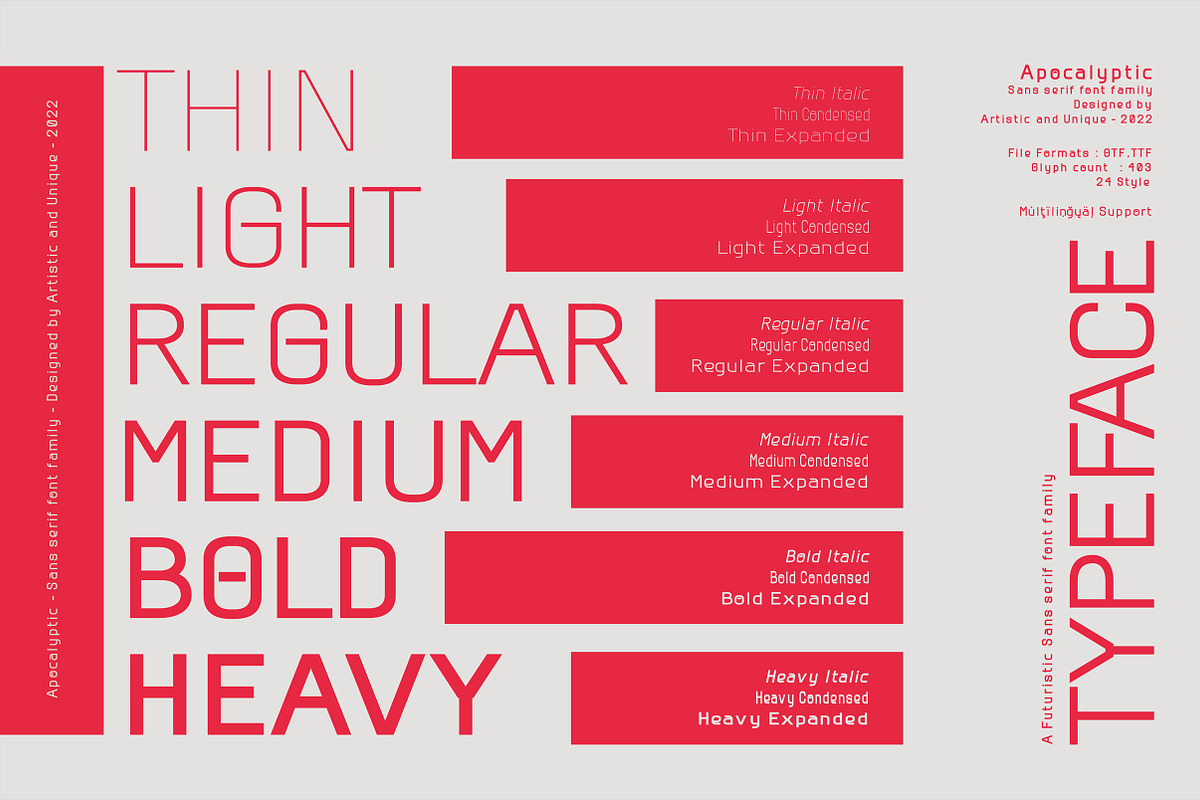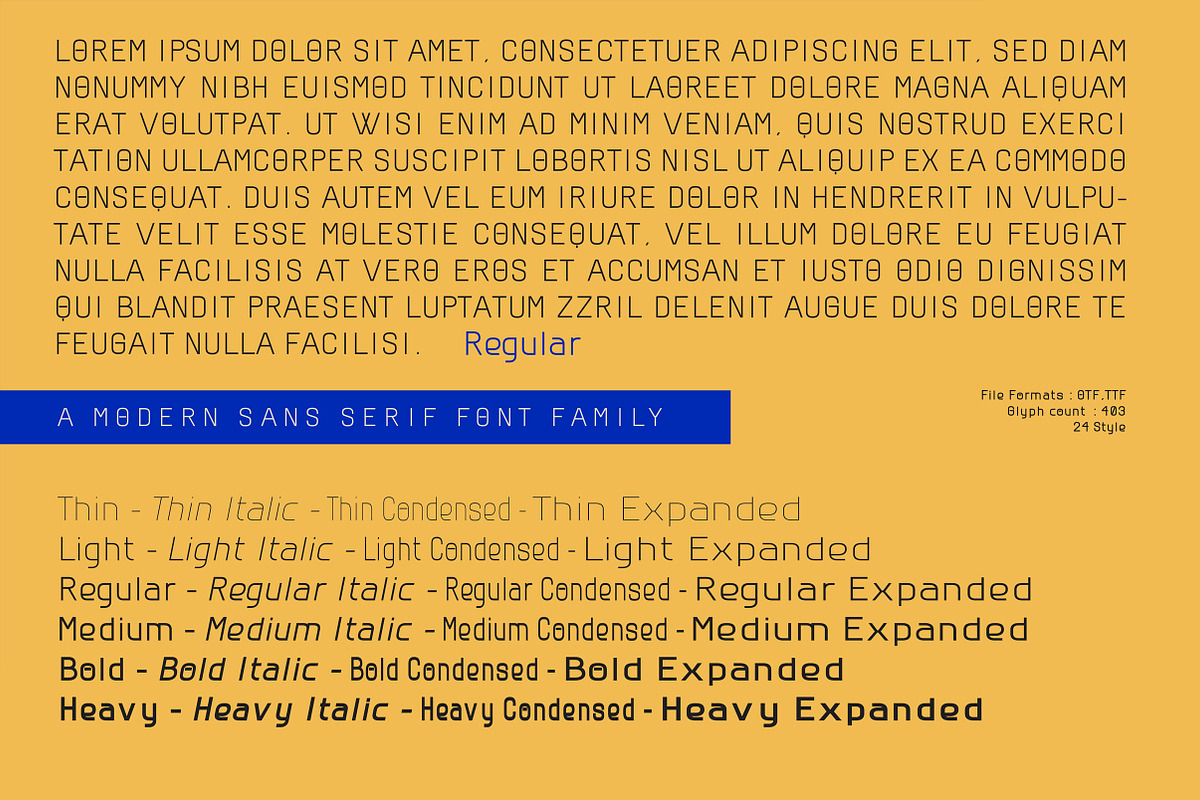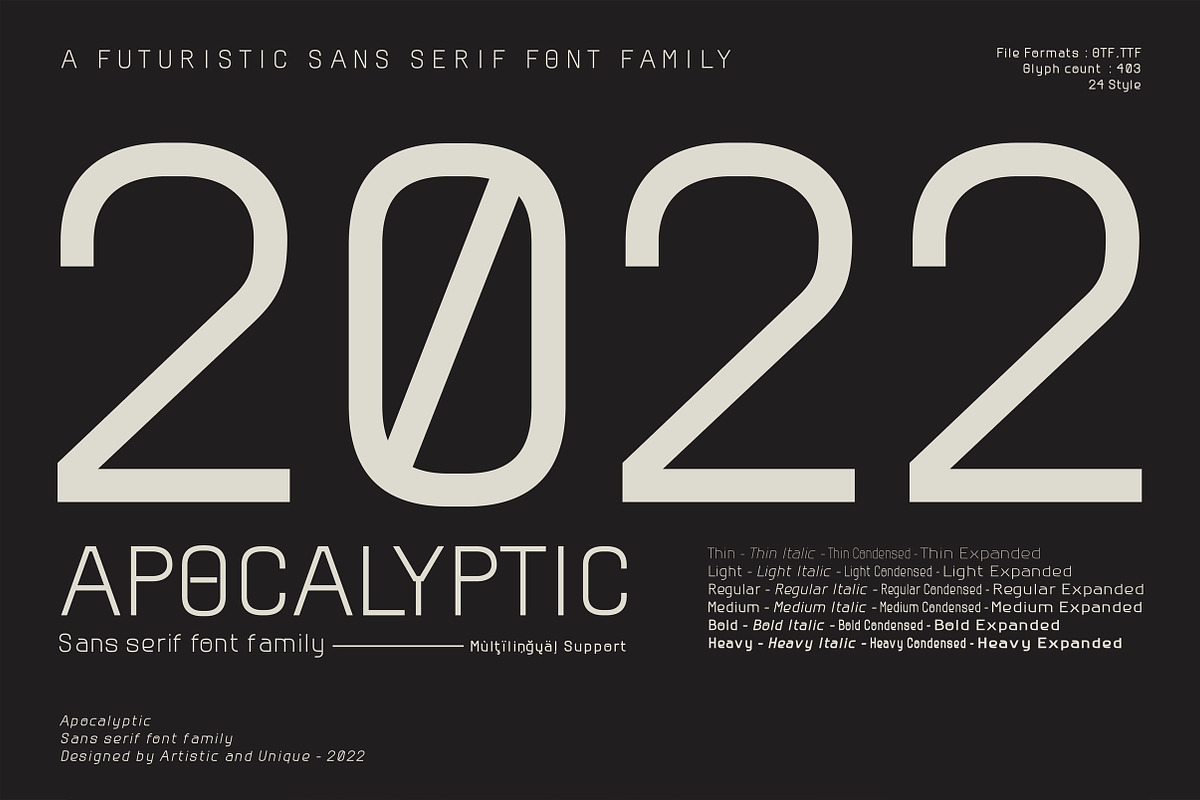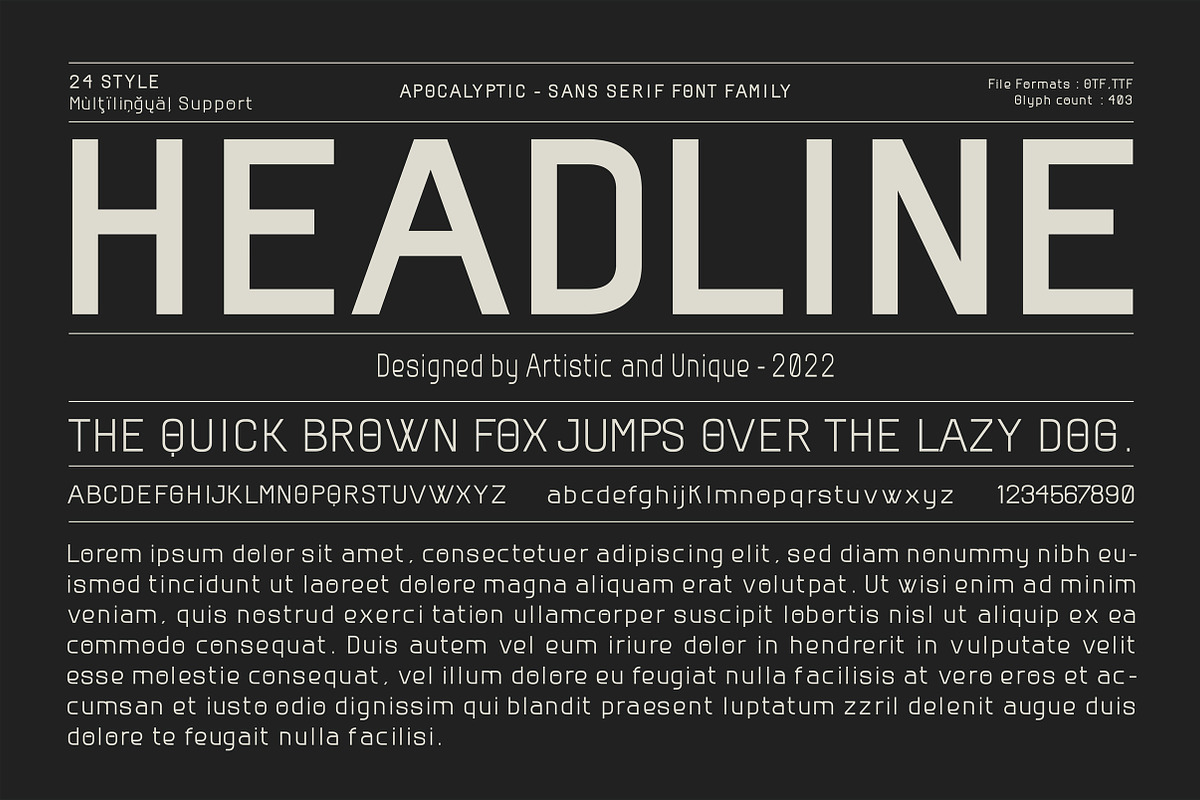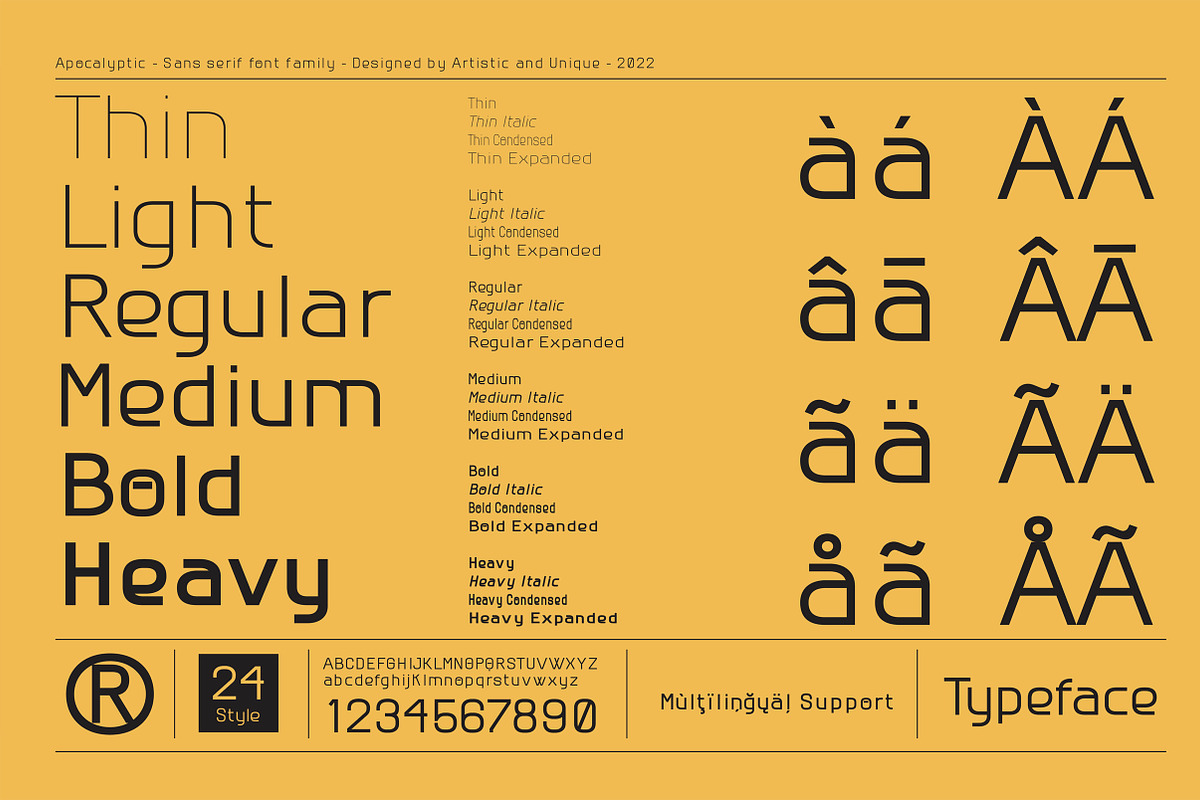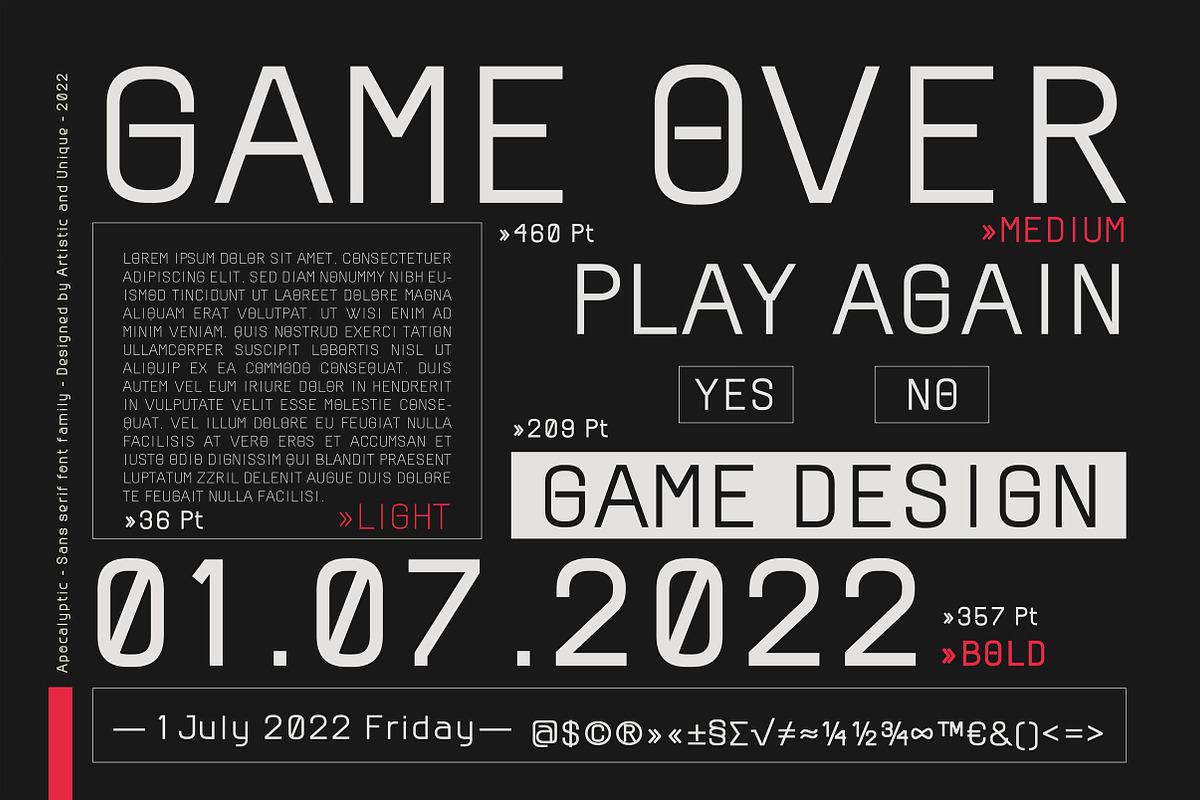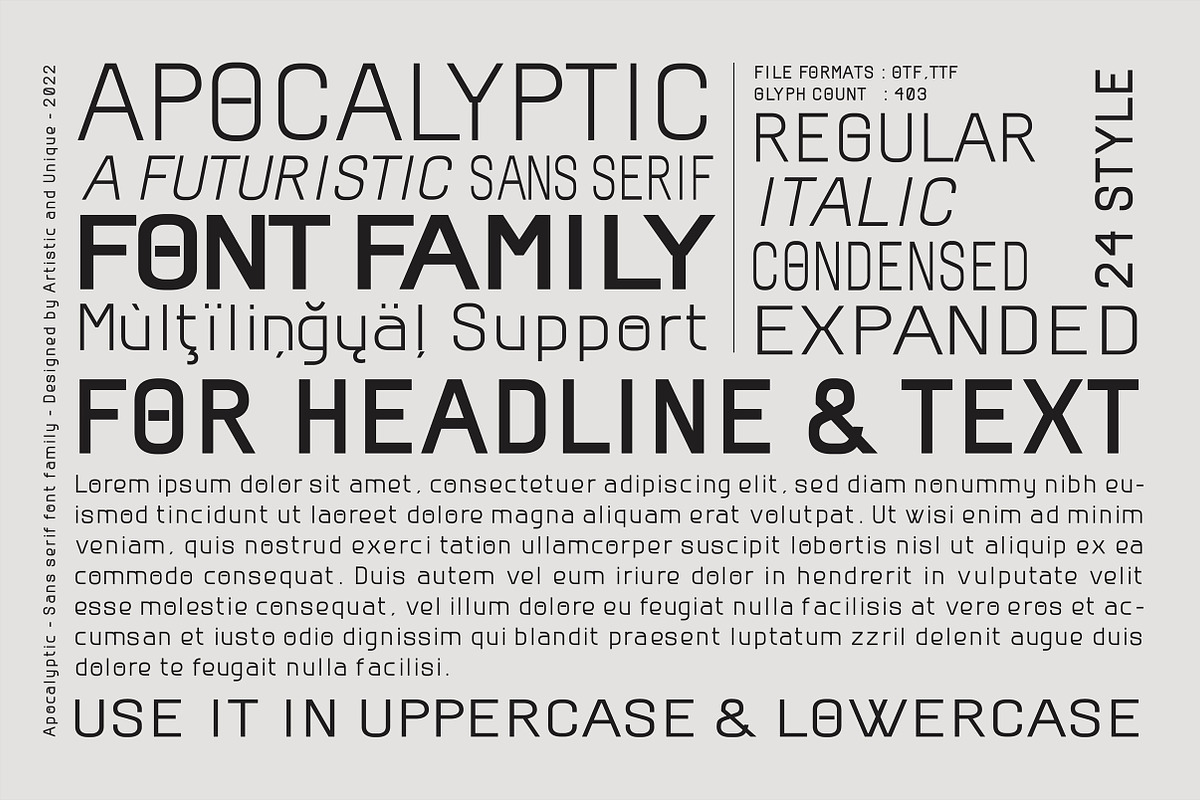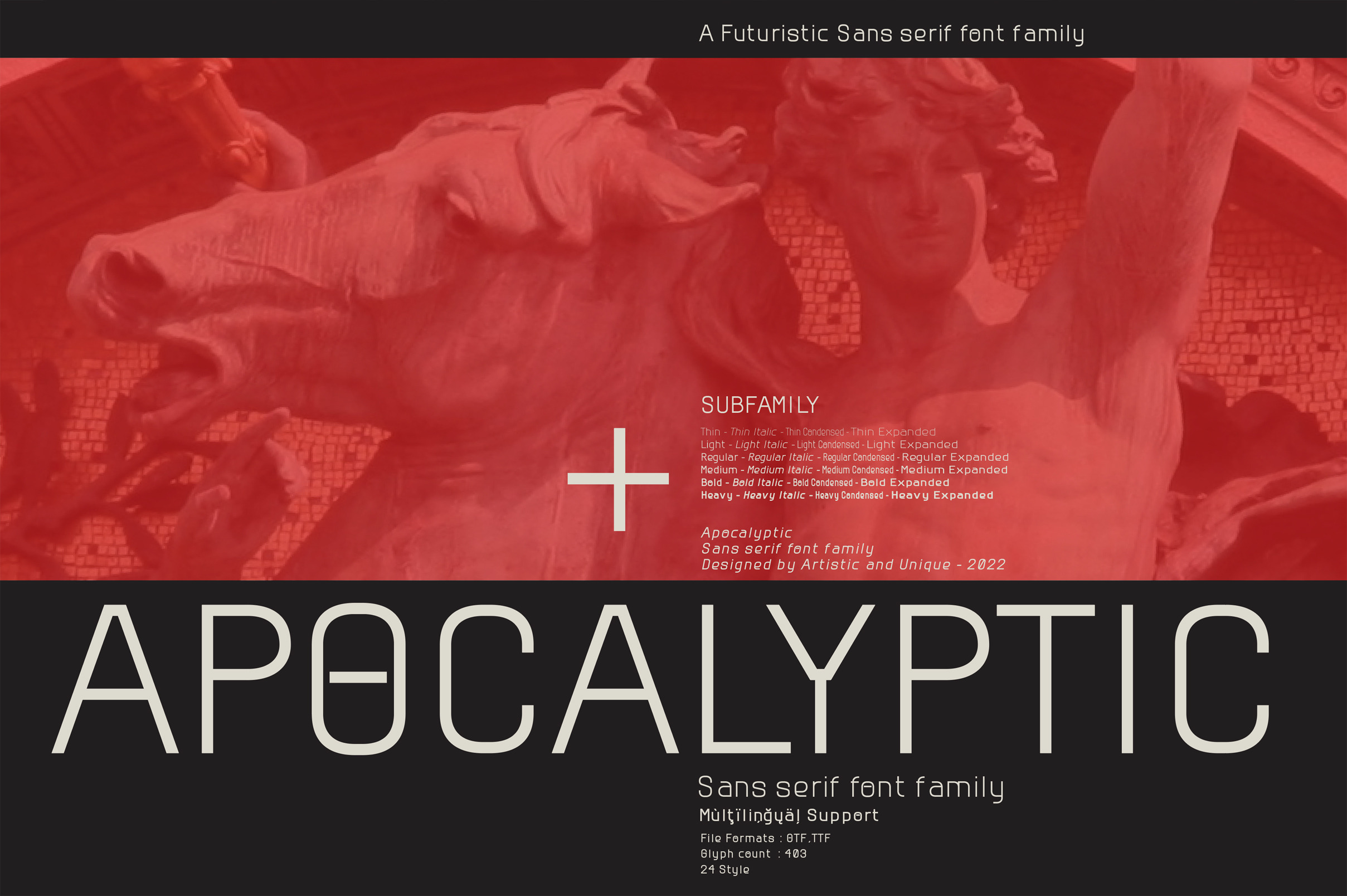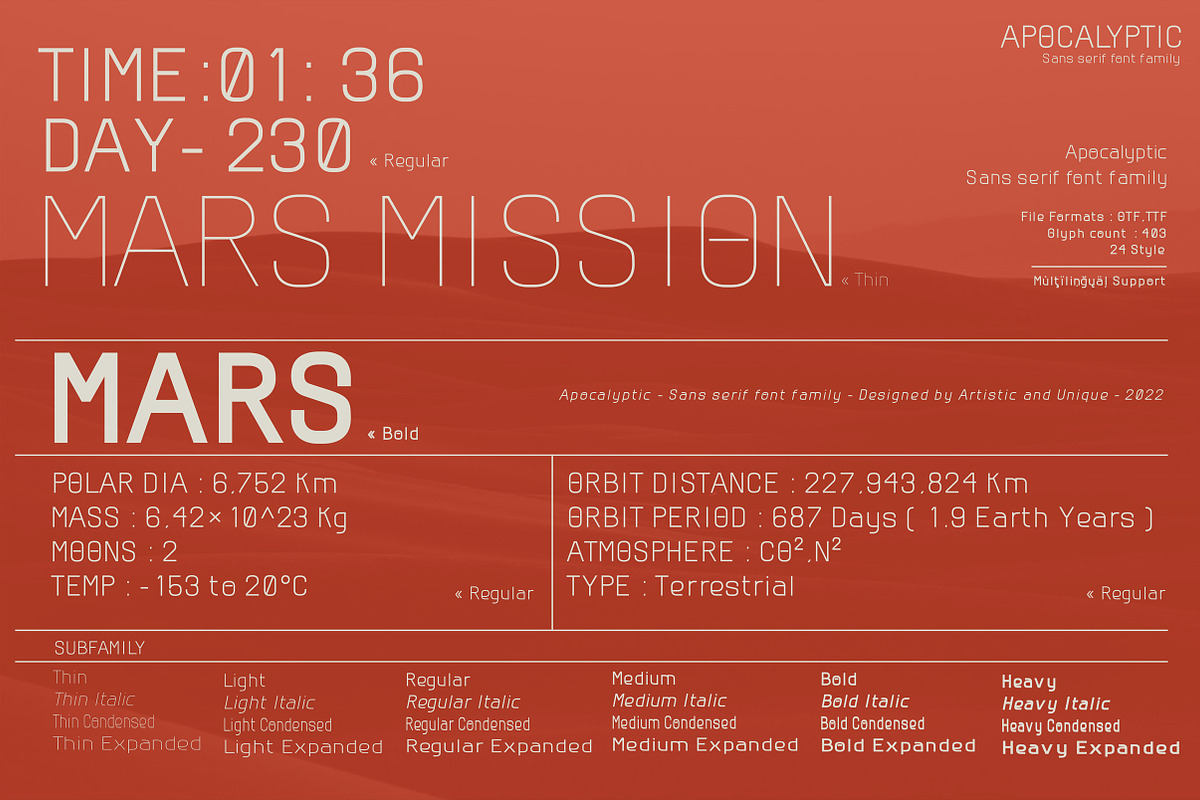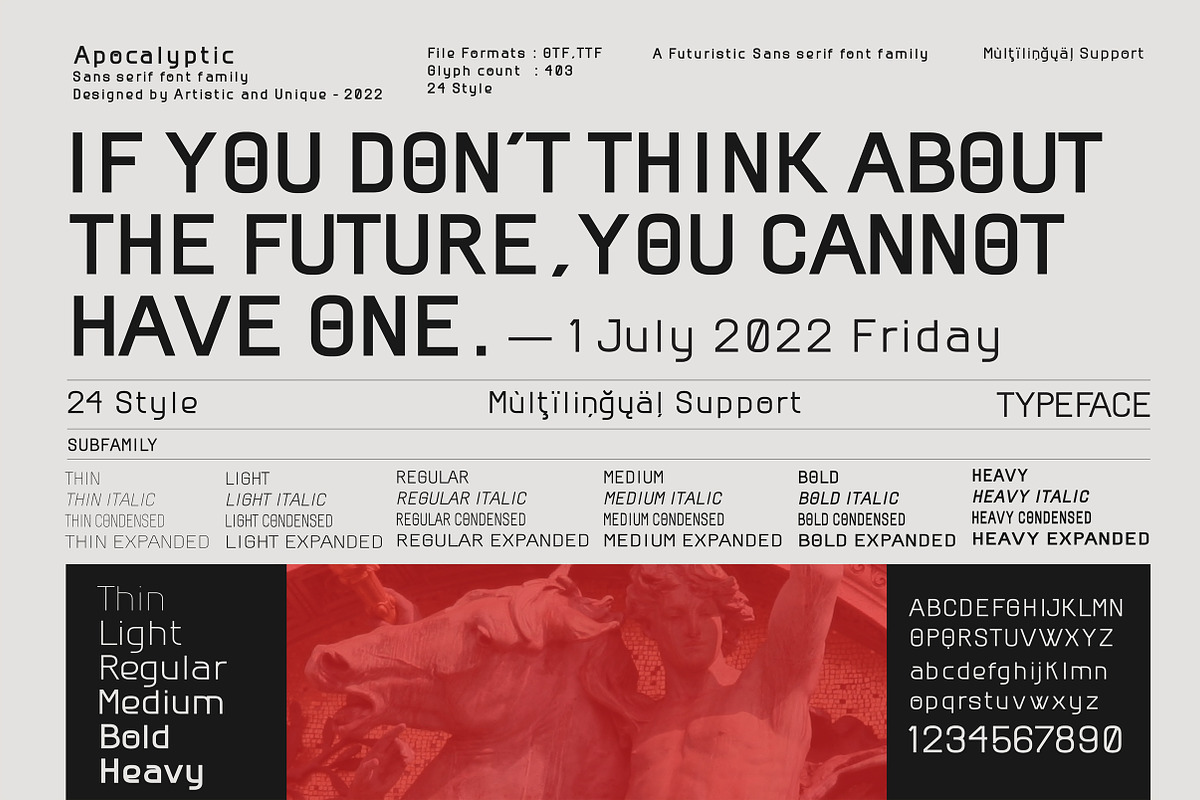
Apocalyptic - Sans Serif Font Family
Apocalyptic - Sans Serif Font Family - Multilingual - 24 Style (2020)
Apocalyptic - Sans serif font family is a futuristic-modern font. The emotional integrity it creates due to its structure is suitable for use in technology, science, space and similar subject contents.
Apocalyptic - sans serif font family, from Thin to Heavy, offers a full range of expression for interfaces and corporate design; in multiple languages, from print to screen media.It offers rich solutions to your creative projects with its alternative versions.You can easily use the sans serif font feature in many areas.You can create your text with normal characters and highlight Heavy characters and titles. It is functional in many sizes and environments that you can use as a main actor in strong headlines.
If you are looking for a font with these features, Apocalyptic sans serif font family may meet your needs.
With this font you can create your unique designs.